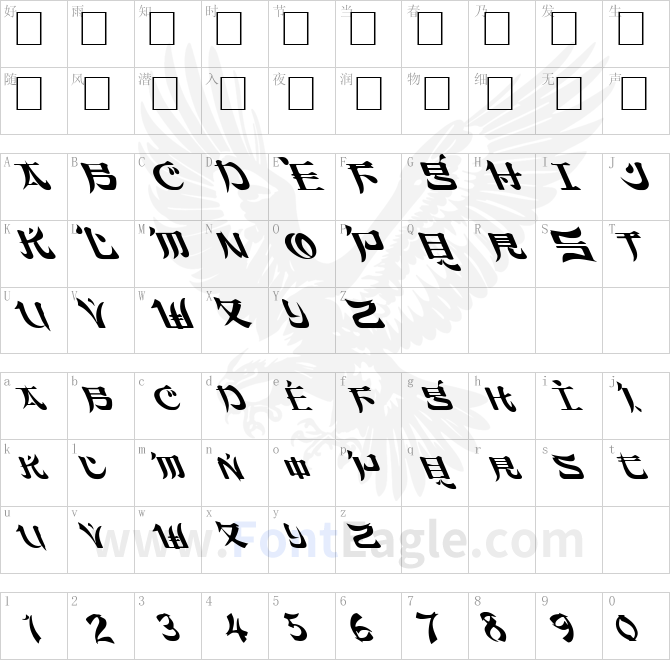
FZ-UNIQUE-46-LEFTY is a great font, widely used in graphic design, single-page menu design, poster design and other fields, and is deeply loved by designers.FZ-UNIQUE-46-LEFTY download.